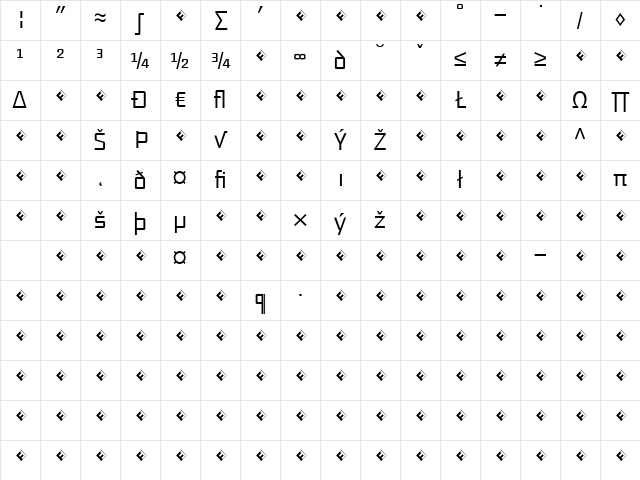
District-LightExpert Regular
Copyright: 2004 Albert Boton, published by FontShop International for the FontFont library.
Version: Version 4.460 2004
Foundry: FontShop International
Designer: Albert Boton
Design Context for District-LightExpert
District-LightExpert is a composed and adaptable typeface that performs quietly and consistently across a wide range of design contexts. Its slender proportions lend an understated elegance to any composition.